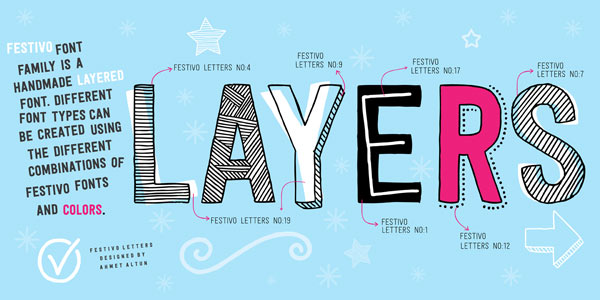
Festivo Letters.
Festivo is a hand drawn layered font family created in 2013 by type designer Ahmet Altun. The Festivo font family includes several letter styles, textures, and shadow effects. You can create numerous font styles by combining Festivo’s different fonts and colors. The handmade Festivo Letters font family also includes a nice set of ornaments. Festivo’s diverse design options offer many possibilities for posters, magazines, printings, t-shirts, and many more.